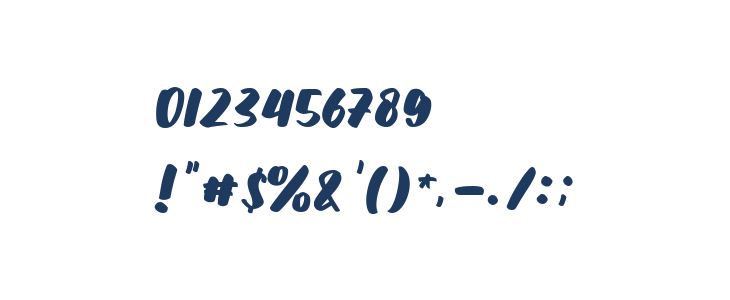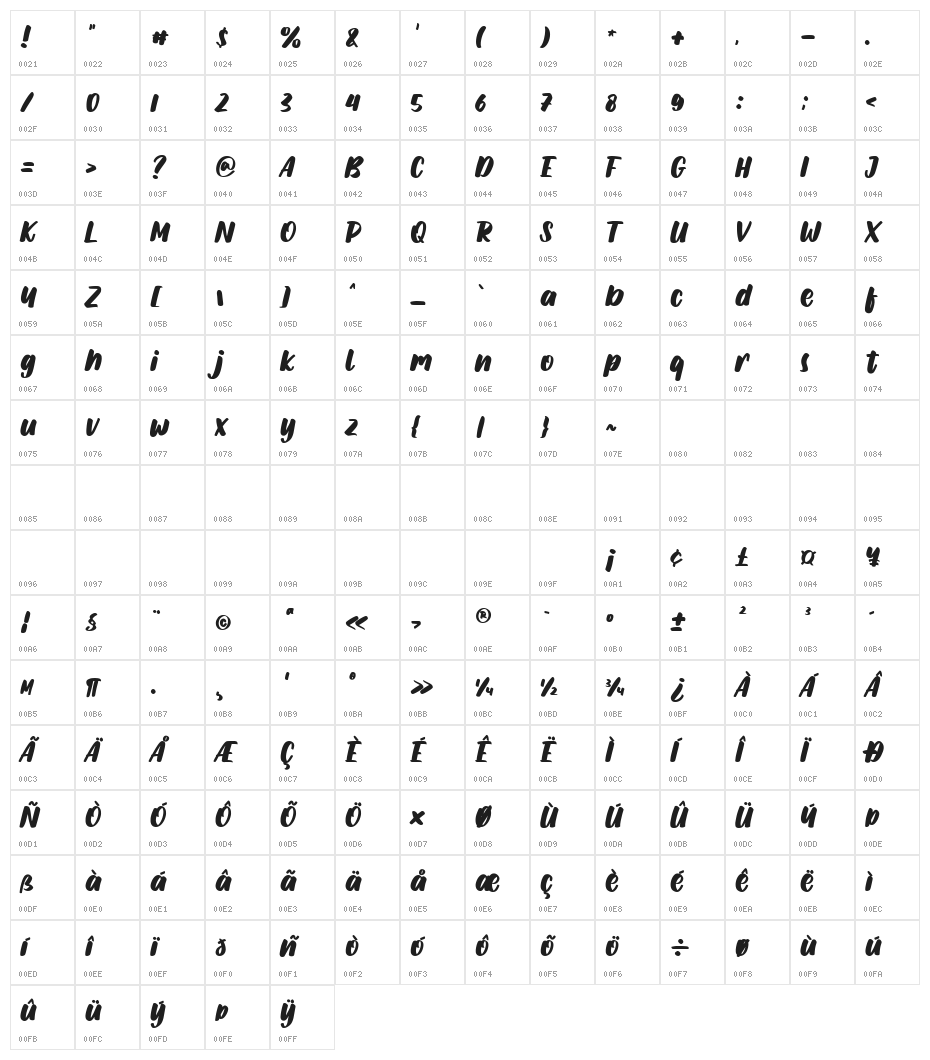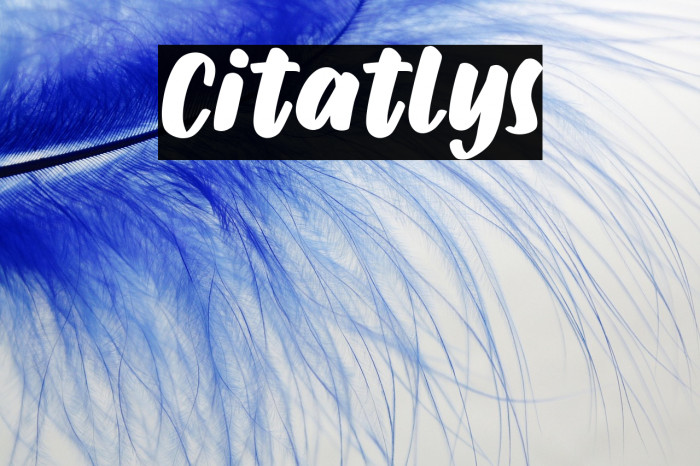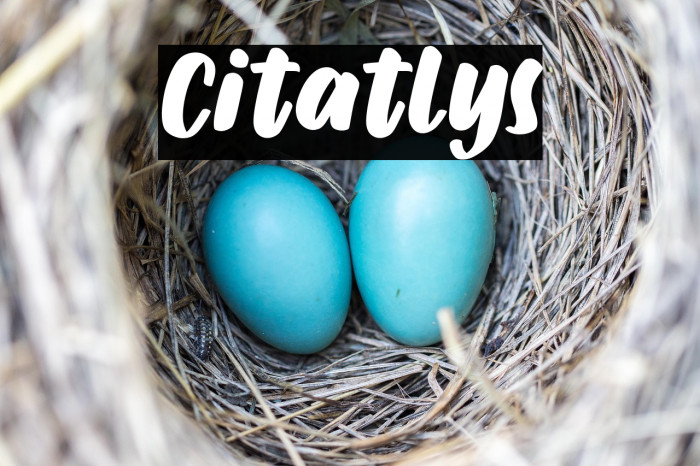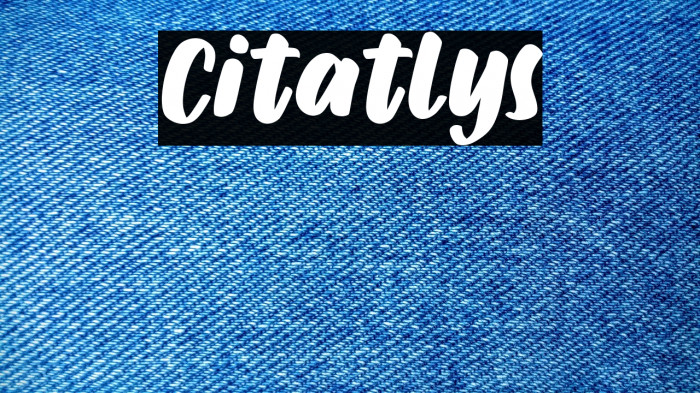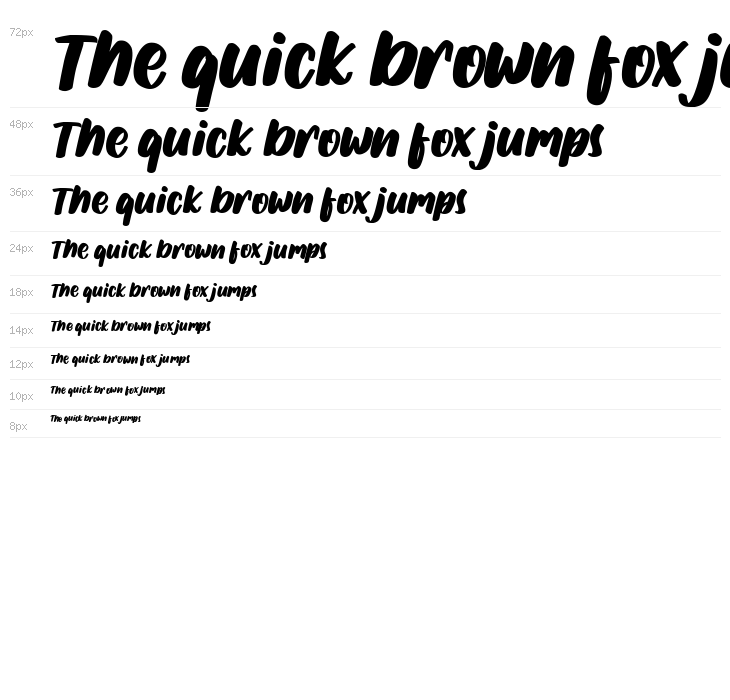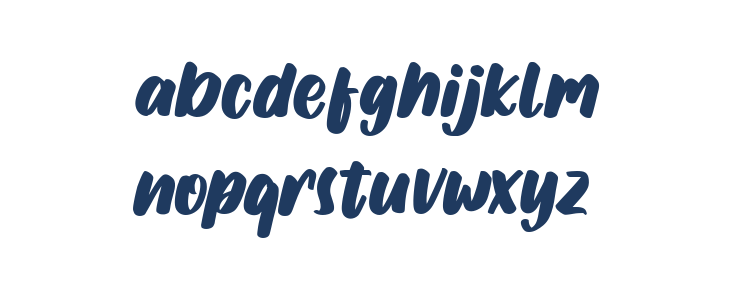
Citatlys Font
Citatlys Description
This font exudes a bold and energetic style with its thick, brush-like strokes that give it a dynamic and lively appearance. The uppercase letters are robust and commanding, while the lowercase characters maintain a playful yet assertive presence. Numbers and special characters are crafted with the same boldness, ensuring consistency across all elements. The font's overall look is reminiscent of hand-painted signage, making it ideal for projects that require a personal and artistic touch. Its strong visual impact makes it suitable for attention-grabbing designs.
| Proposed Projects | Ideal for posters, branding, packaging, and any design needing a bold, artistic flair. |